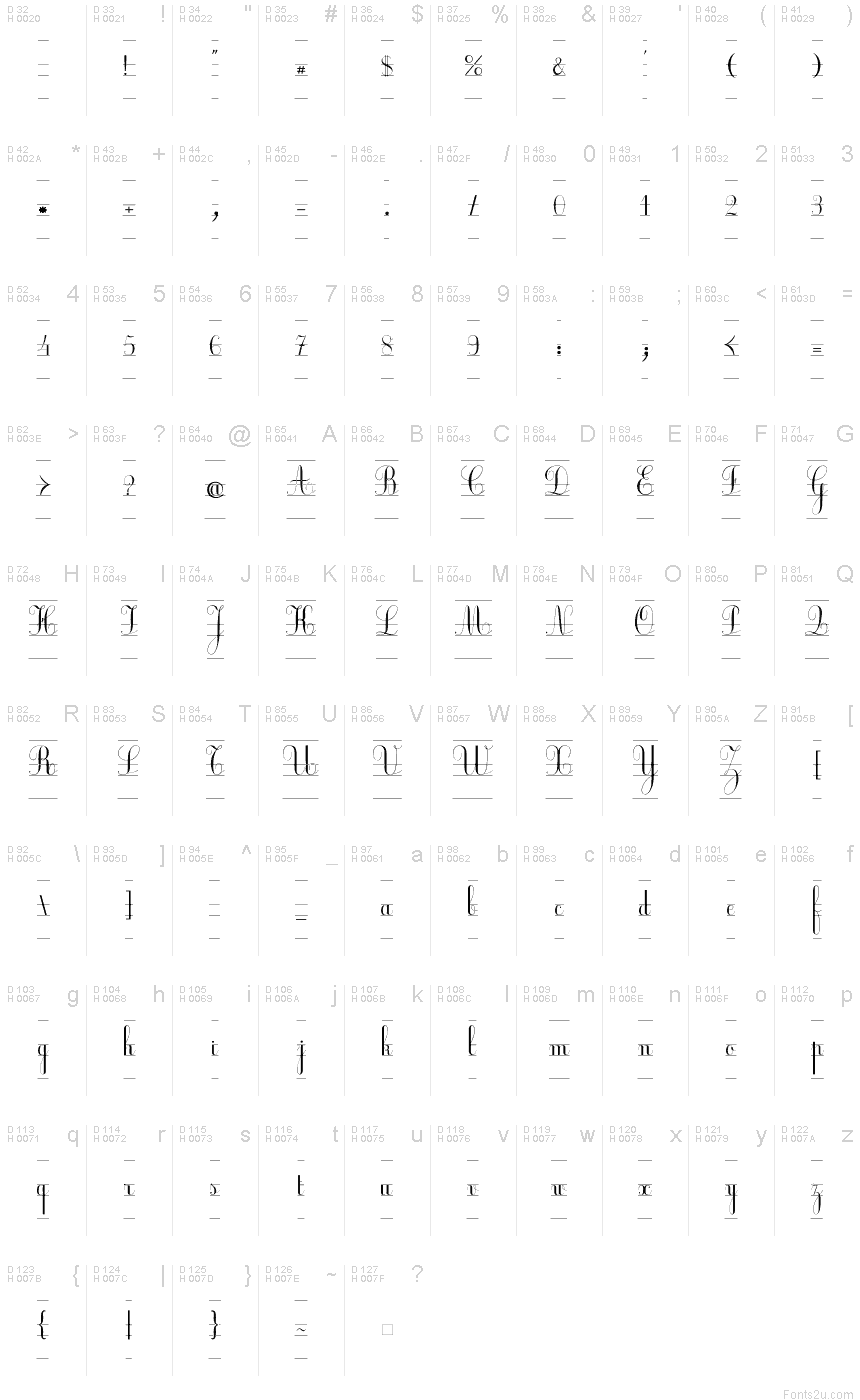
Ecolier_CP
Ecolier_CP font by Douteau Jean-Marie is a free school script typeface that captures the smooth, looping handwriting of classic French copybooks. Its tall, slender letters sit neatly on precise guide lines, with flowing connections that feel both disciplined and graceful, like ink pulled steadily across crisp paper. The result is a script that’s elegant but highly readable, giving layouts a taught-by-hand warmth without losing structure.
Using Ecolier_CP, worksheets, copybooks, and handwriting practice sheets instantly look organized and professional. This free font also shines on educational posters, children’s book headings, classroom signage, certificates, and nostalgic branding that references traditional penmanship. Pair it with a clean geometric sans serif for body text and keep Ecolier_CP slightly larger so its fine strokes stay clear and inviting.